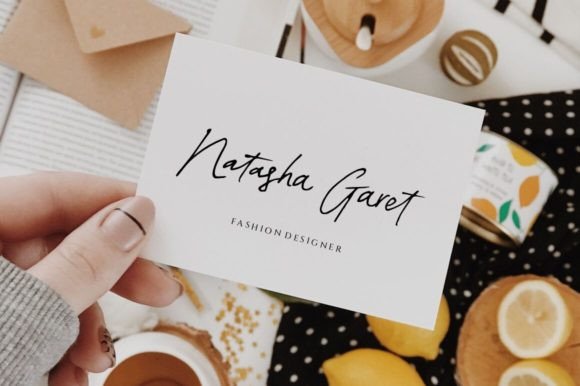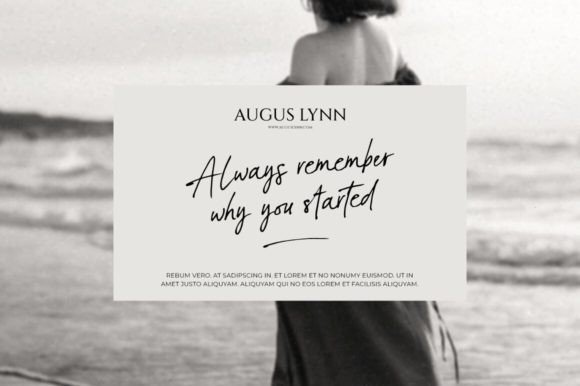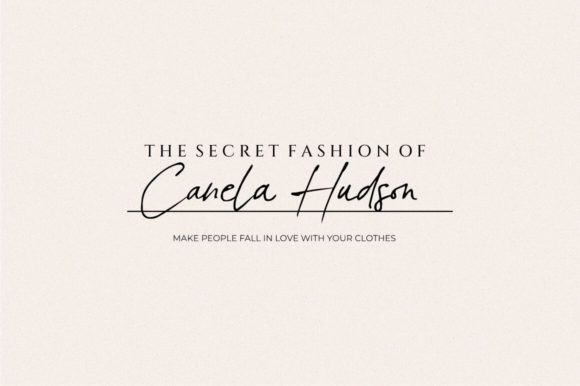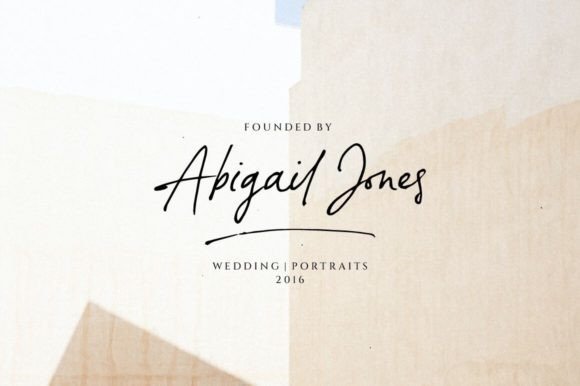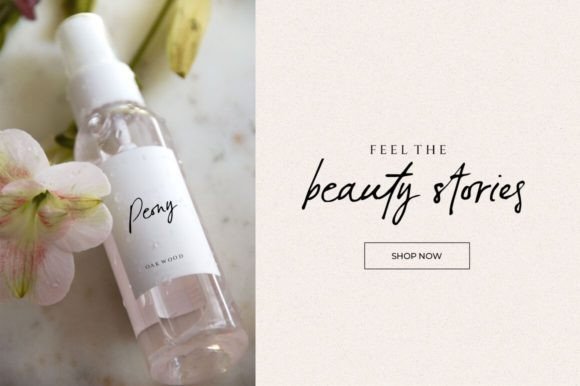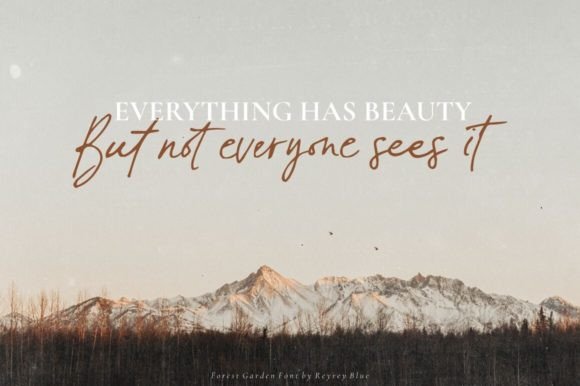
Discover the Natural Beauty of Your Designs
As designers, we’re always on the lookout for that perfect font to bring our creative visions to life. And sometimes, it’s the little moments that spark our inspiration – like a walk through a lush forest, surrounded by the gentle rustle of leaves and the warmth of sunlight filtering through the trees. It’s in these moments that we’re reminded of the beauty of nature and its ability to evoke emotions and connection.
That’s why we’re excited to introduce the Forest Garden Font, a modern inky handwritten font designed to capture the essence of the natural world. With its authentic and organic style, this font is perfect for designers looking to add a touch of whimsy and elegance to their work. Whether you’re creating a layout for quotes, body copy, or logos, the Forest Garden Font is sure to elevate your designs and leave a lasting impression.
Forest Garden Font Key Features
- Font Family: A natural, elegant script font with a unique, hand-drawn feel.
- Unique Characteristics: Features a distinctive, organic feel with subtle texture and imperfections, giving it a unique, handcrafted look.
Forest Garden Font Review
Overall, I found the Forest Garden Font to be a beautiful, unique addition to any design project. ✨ Its natural, organic feel immediately evokes a sense of calm and serenity, making it perfect for projects that require a touch of the outdoors.
Here are some of the things that work well in the Forest Garden Font:
- ✨ Unique letterforms that add character to text
- ✨ Excellent legibility, even at smaller font sizes
- ✨ Versatility in its use, suitable for a wide range of projects
- ⚠️ Limited character set, which may be a concern for those who need to support multiple languages
- ⚠️ May not be suitable for projects that require a more modern or futuristic feel
Overall, I would highly recommend the Forest Garden Font to anyone looking to add a touch of nature to their design project. While it may not be perfect for every situation, its unique character and excellent legibility make it a great choice for many projects.
For optimal results, use the Forest Garden Font in conjunction with earthy-toned backgrounds and natural imagery. This font is particularly well-suited for designs related to nature, wellness, and sustainability.
The Forest Garden Font is ideal for designs such as:
- Nature-inspired branding and logos
- Wellness and self-care marketing materials
- Sustainability-focused infographics and reports
- Outdoor and environmental education materials
Alternatives to “Forest Garden Font” for Designers
Lato is a modern sans-serif font that is highly legible and versatile. It is ideal for use in body text, headings, and titles. Lato is a great choice for designers who want a clean and minimalist look. Compared to Forest Garden Font, Lato is more geometric and lacks the natural, handwritten feel of Forest Garden. Use Lato when you need a modern and sophisticated look.
Playfair Display is an elegant and luxurious serif font that is perfect for use in titles, headings, and other display text. It is ideal for designers who want to add a touch of sophistication and refinement to their designs. Compared to Forest Garden Font, Playfair Display is more formal and less casual. Use Playfair Display when you need to convey a sense of luxury and high-end quality.